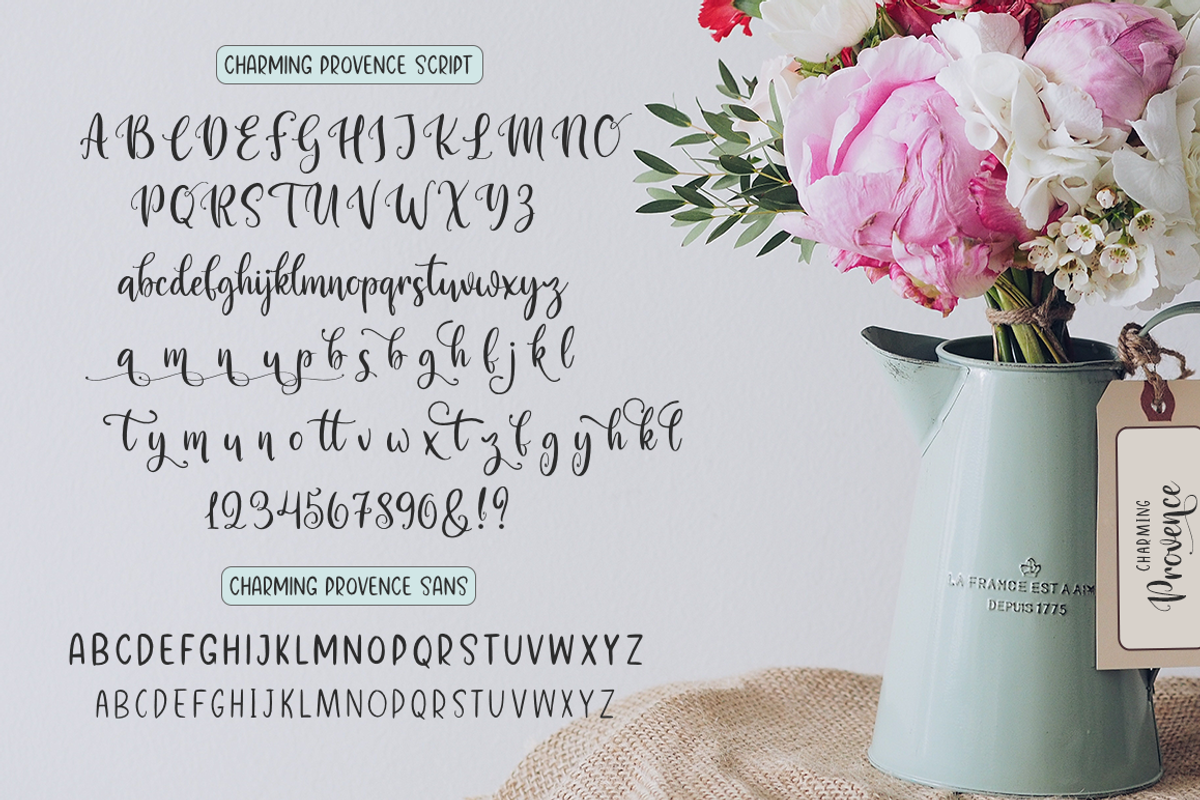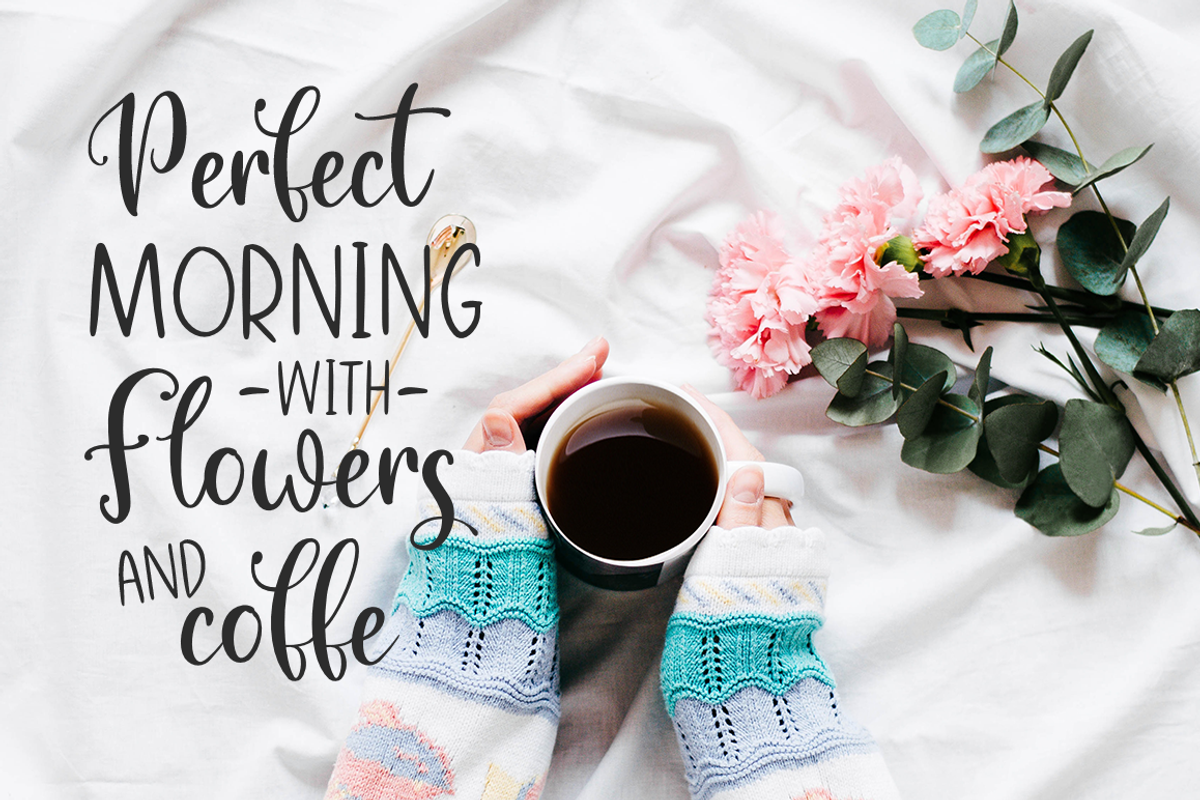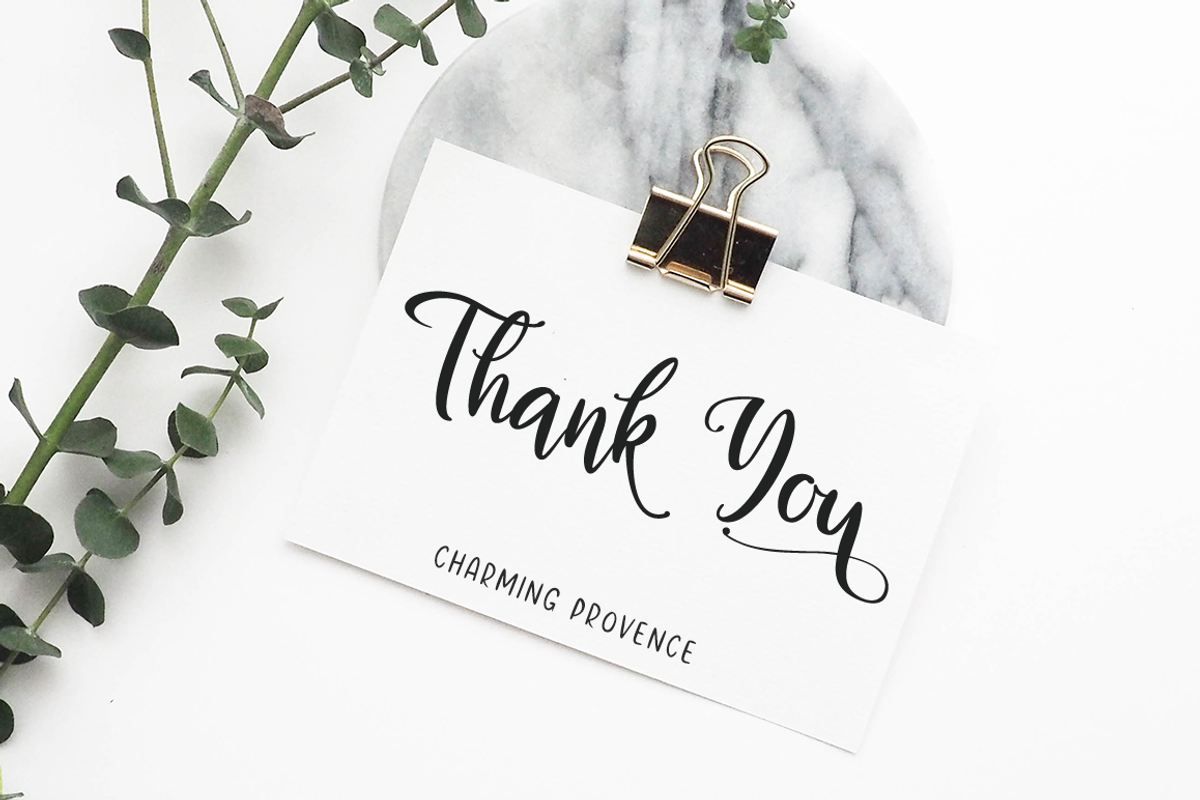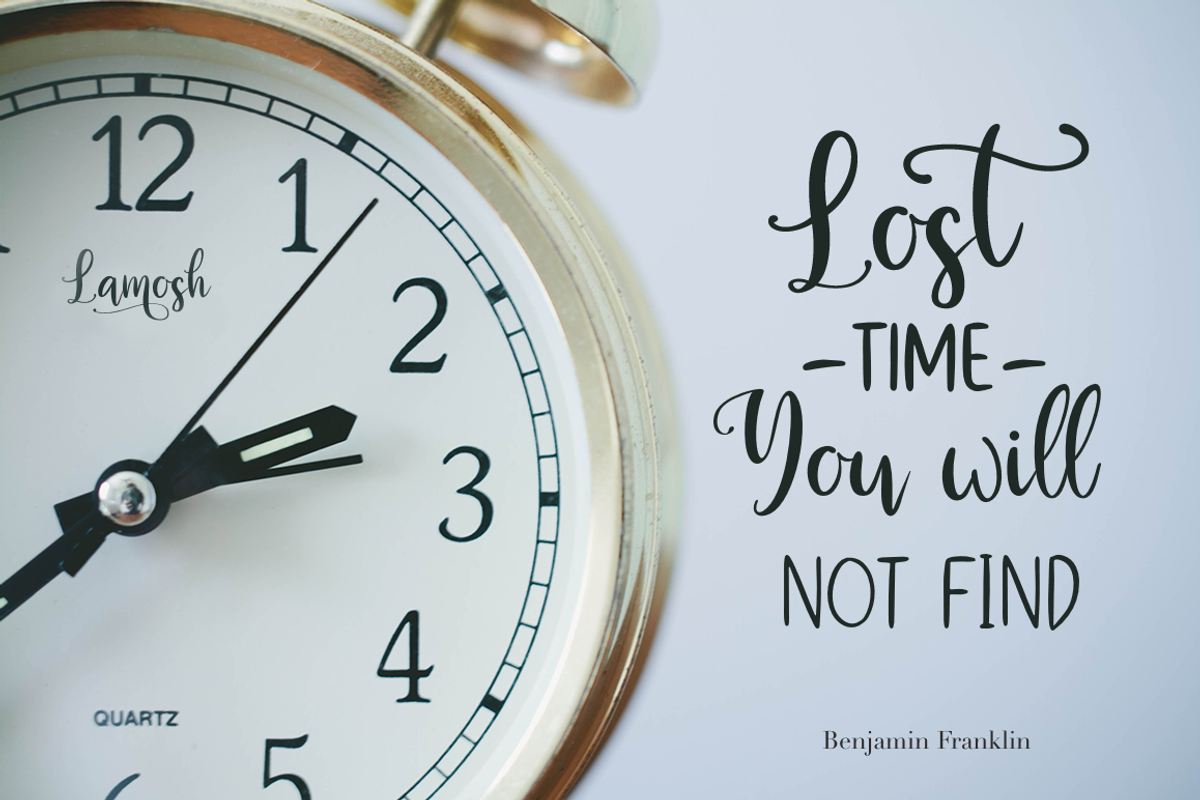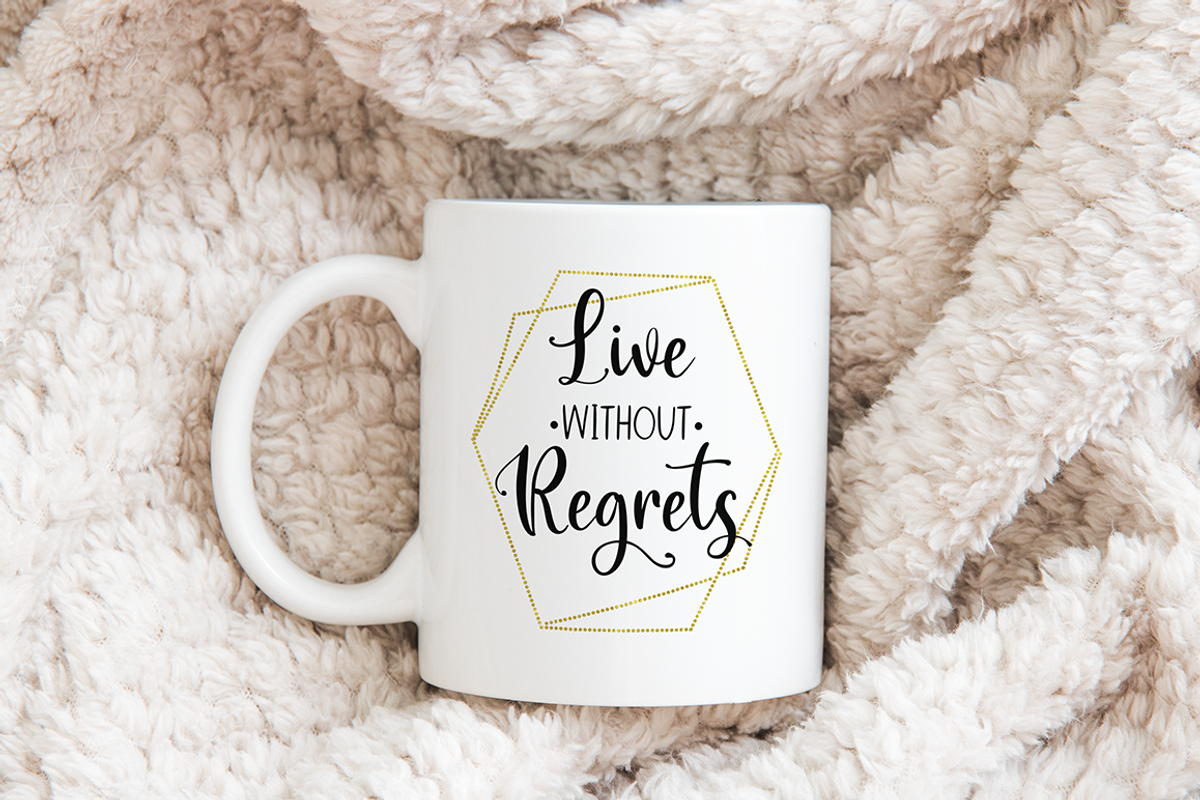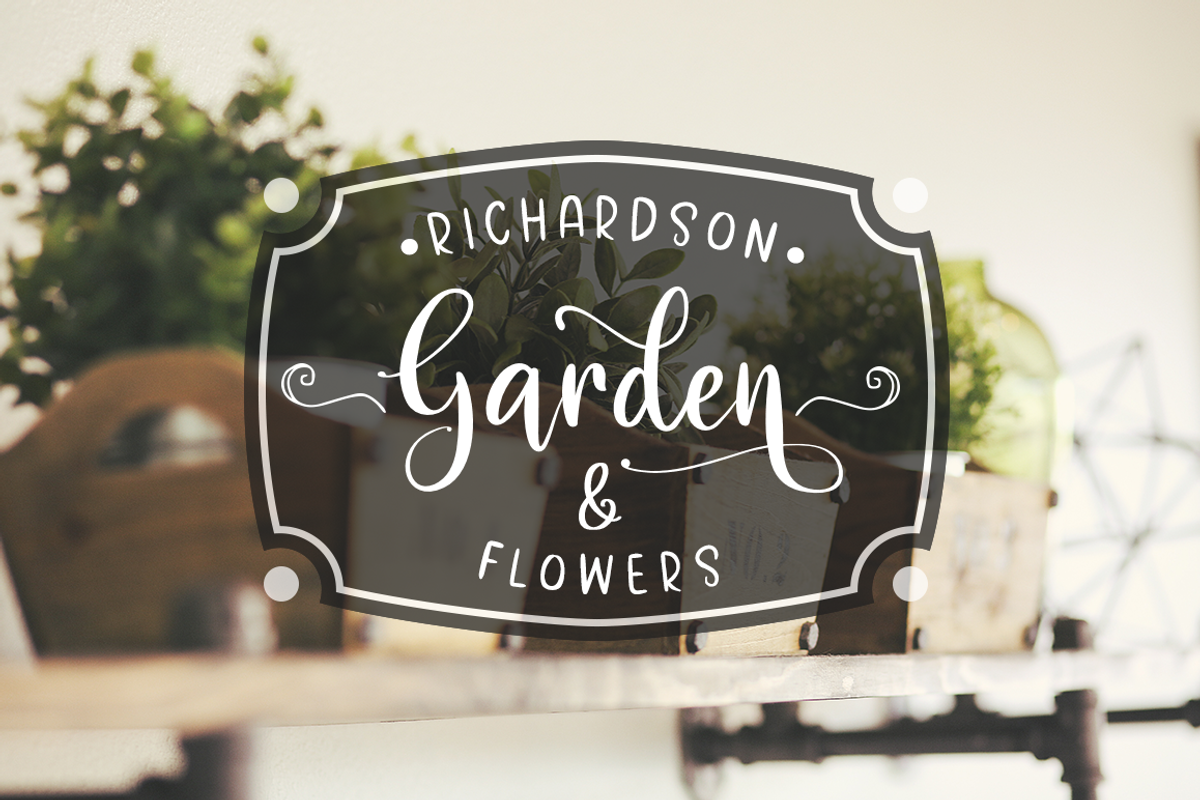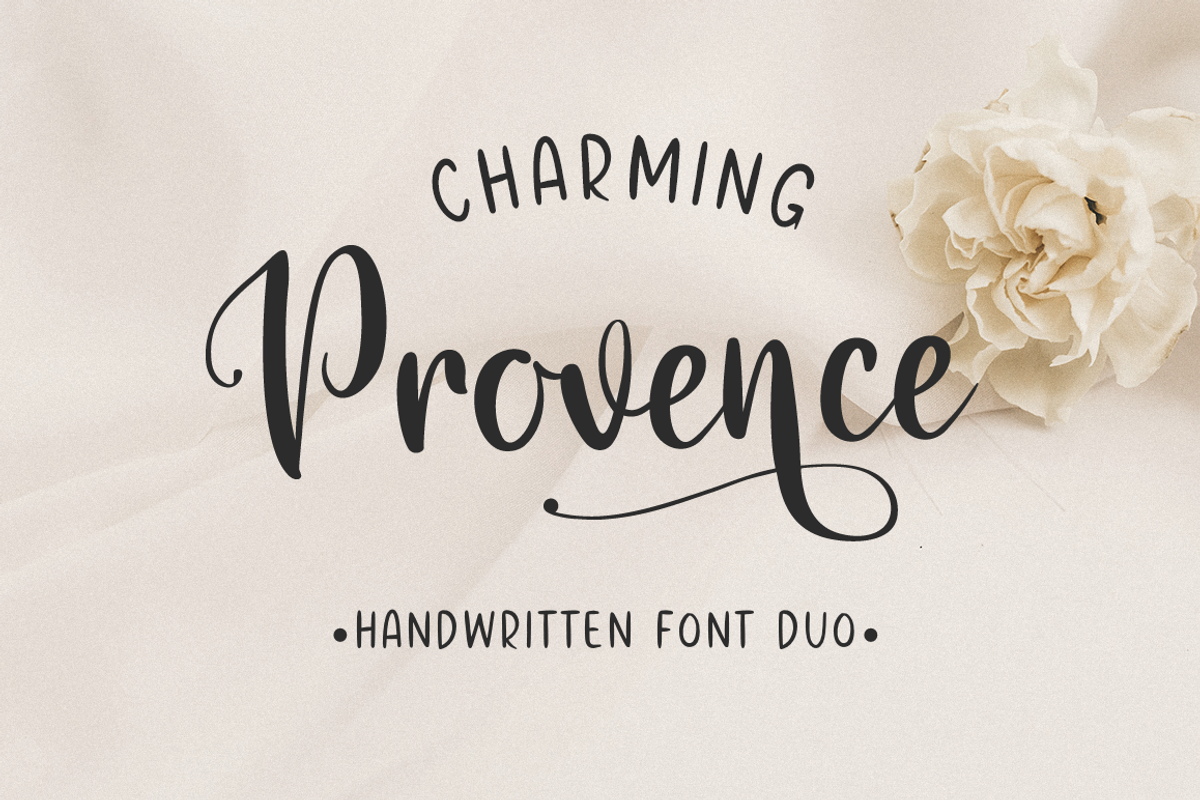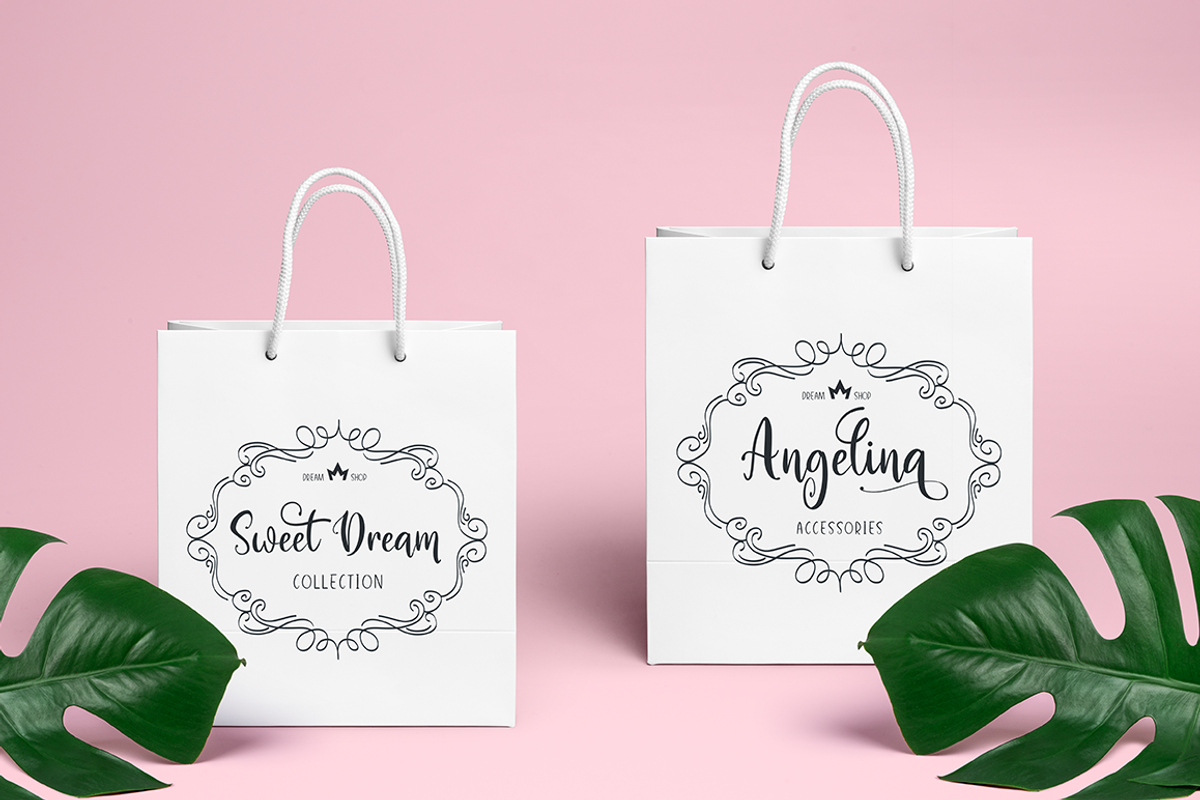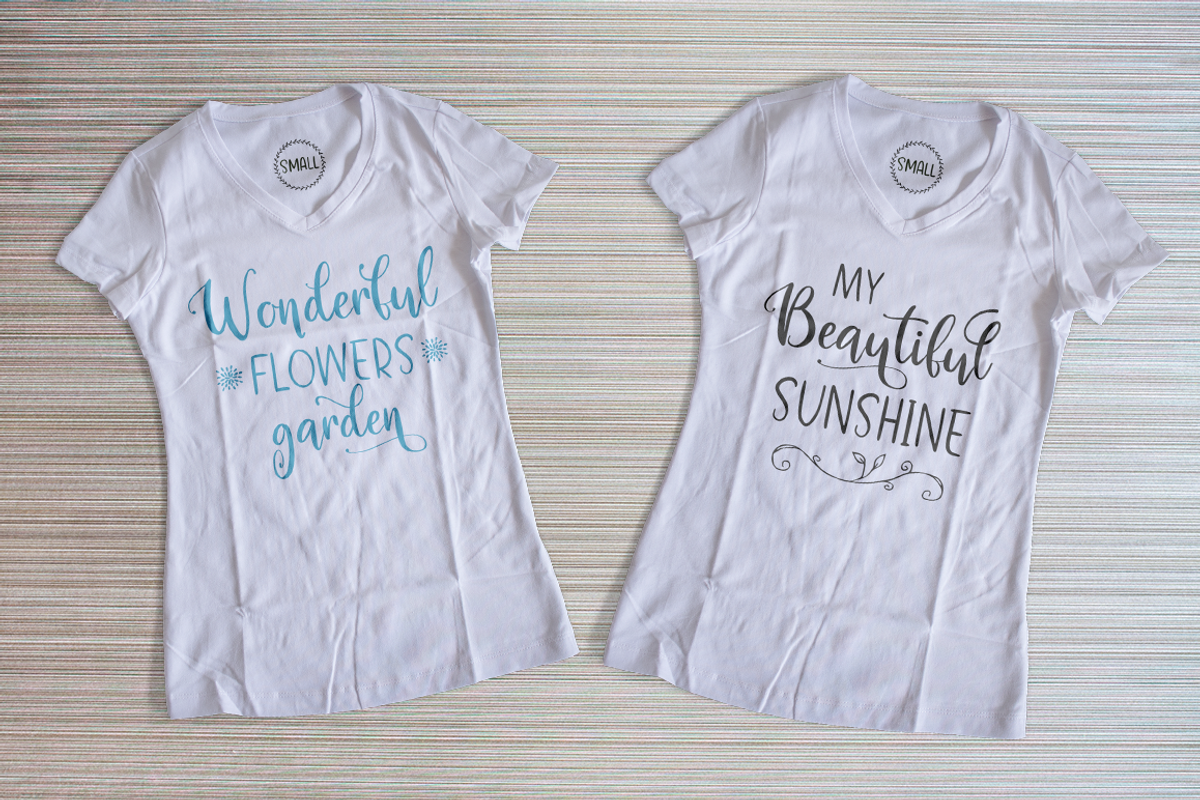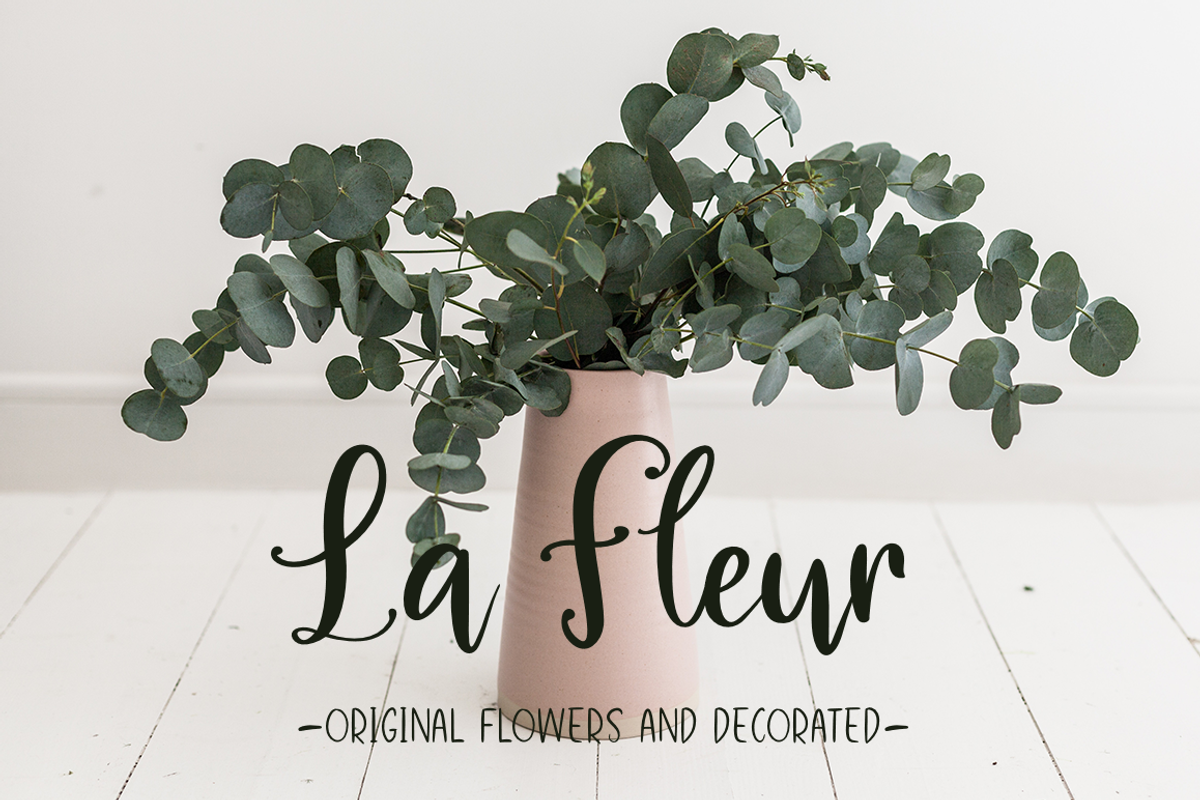
Charming Provence
Charming Provence- a new modern handmade font duo.
This font is ideal for branding and decorate your any project. Also with their help, you can create a logo or beautiful frame for your home. Or just use for your small business, book covers, stationery, marketing, blog, magazines and more.